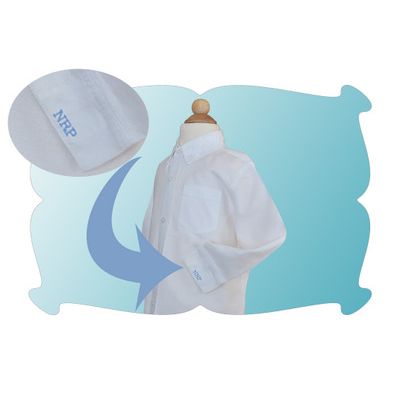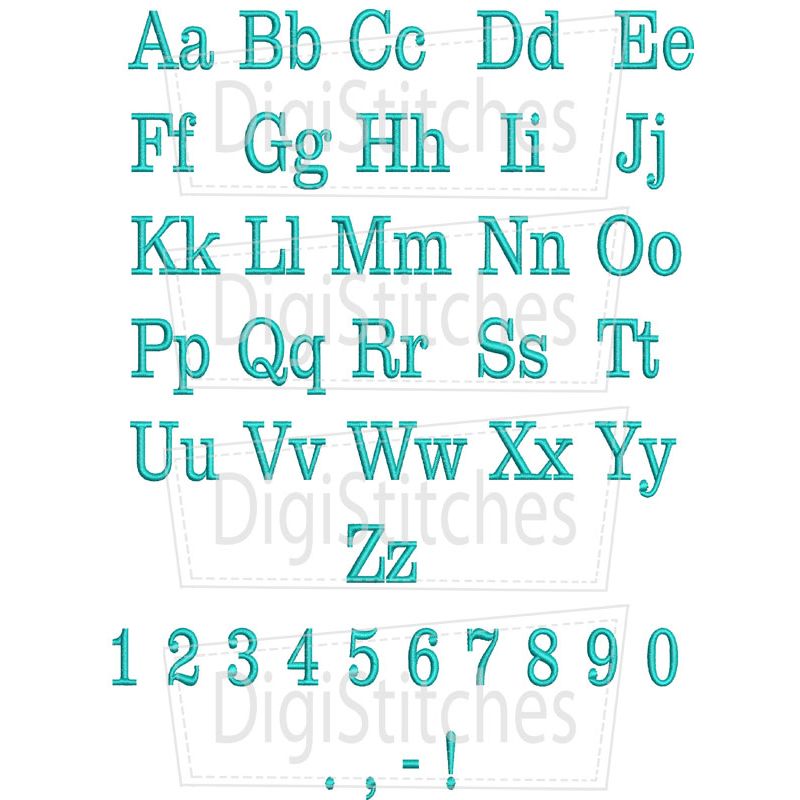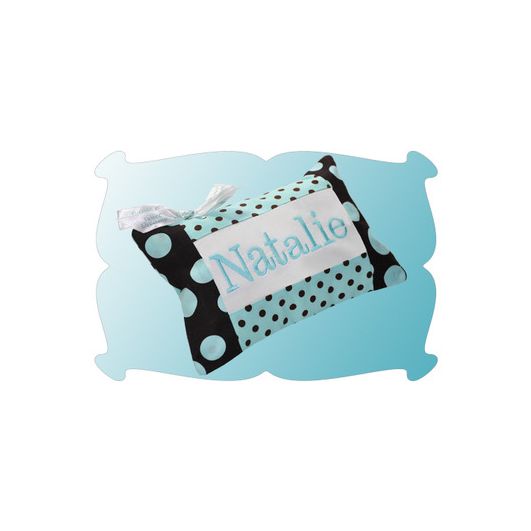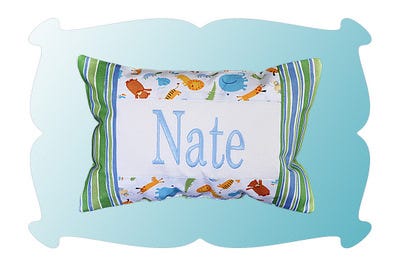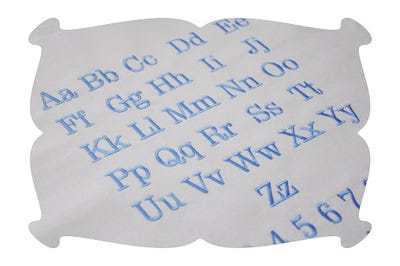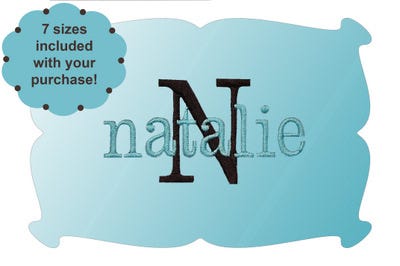
Natalie Satin Stitch Embroidery Font
Natalie Embroidery Font
So many of you have requested that I digitize the font I used a few months ago on the "Nate" name pillow.
It really is such a beautiful font for both girls and boys.
I love the wide satin stitches of this font.
So there's always the perfect size for your embroidery needs.
A beautiful stitch out no matter what you choose put it on...from monogrammed shirt cuffs to name pillows and more!
The Natalie Embroidery Font comes with capital letters A thru Z, lower case letters a thru z, numbers 0-9 and puncuation (period, hyphen, comma and exclamation point).